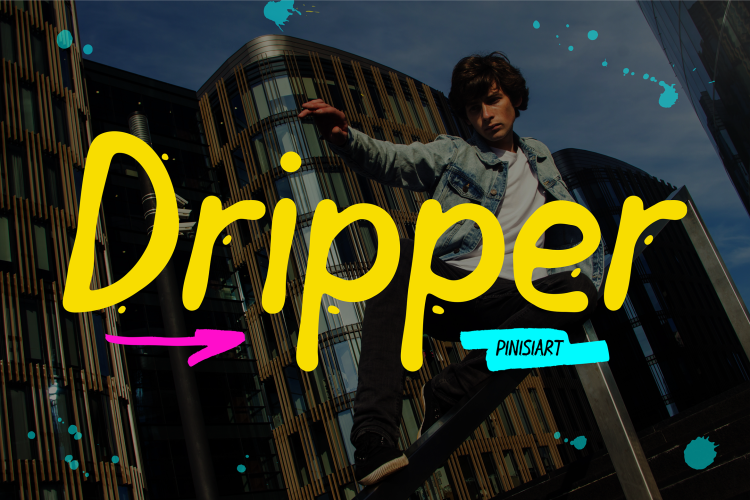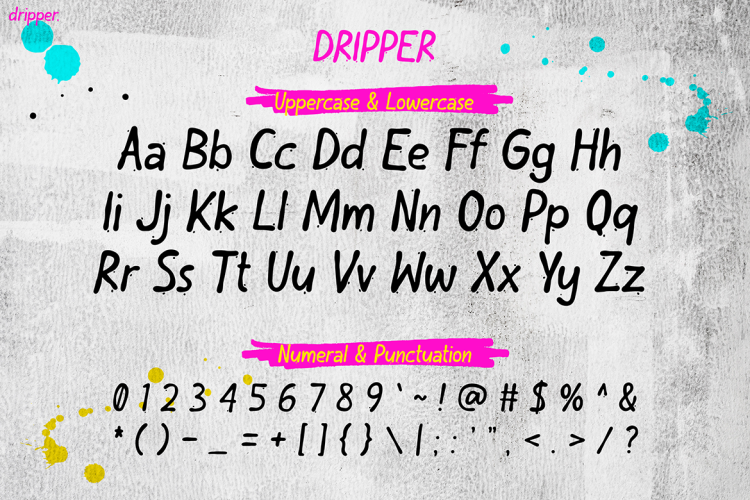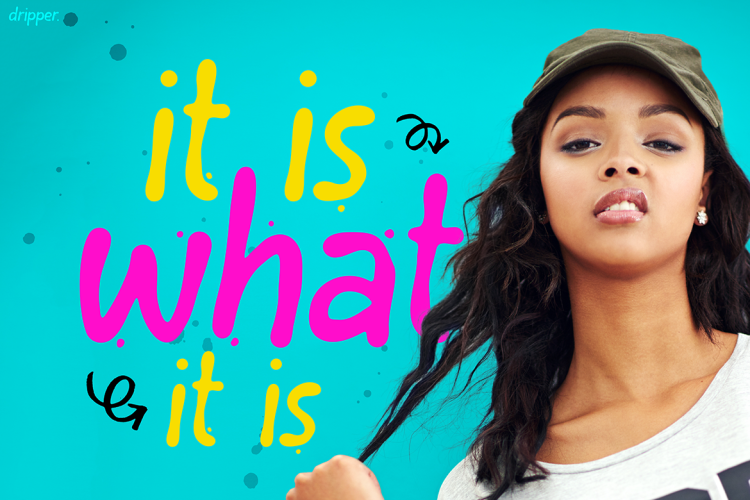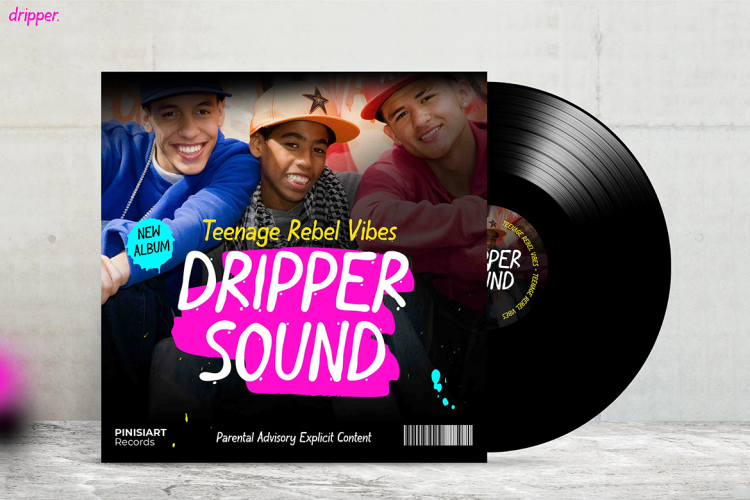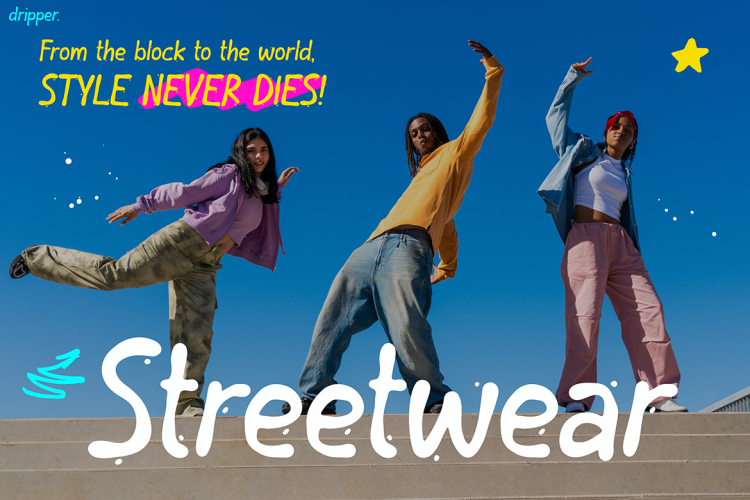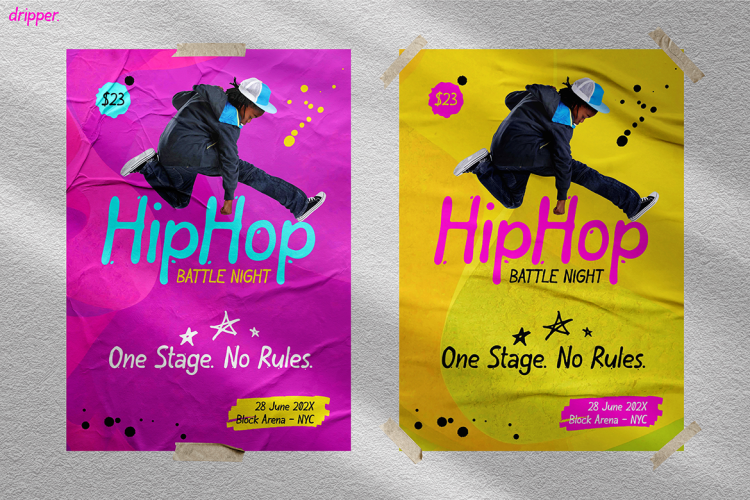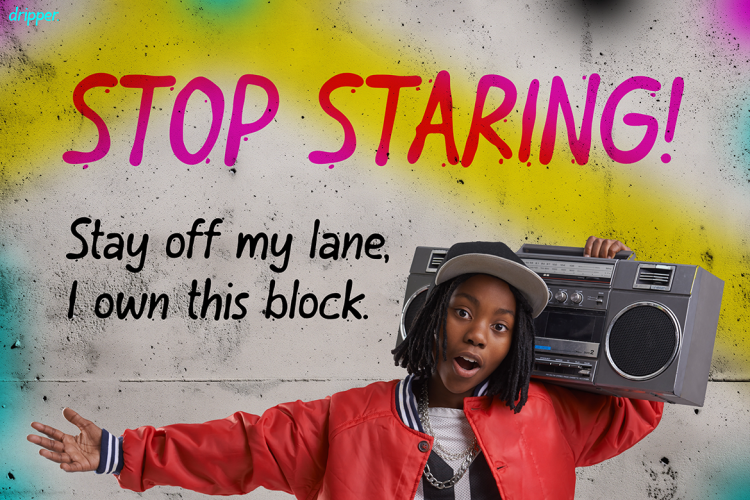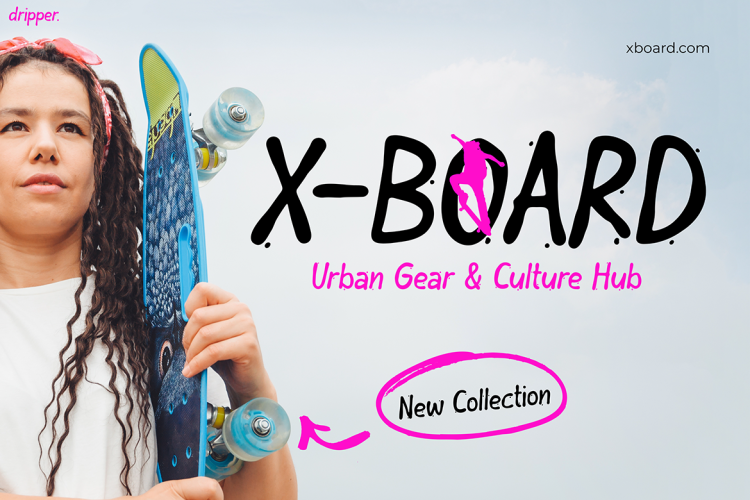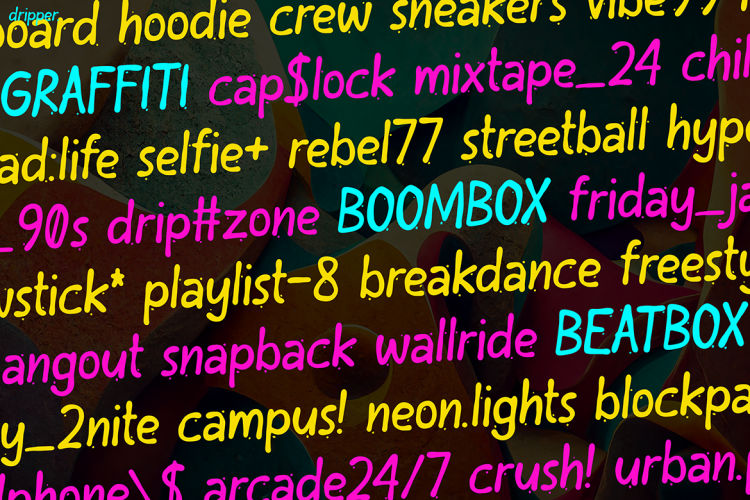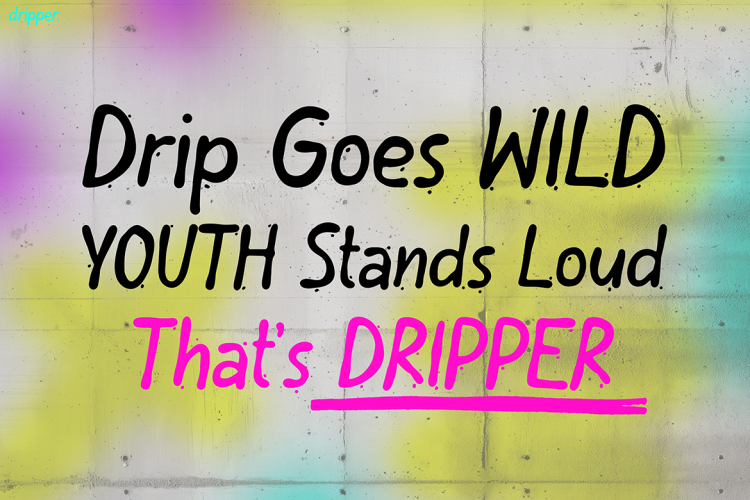
Why Instagram Font Dripper is Unique
Instagram Font Dripper isnโt just another typefaceโit makes a bold statement of street culture, creativity, and confidence. Graffiti art and dripping paint strokes inspire its design, transforming ordinary text into something powerful. Moreover, the font brings the raw vibe of urban walls together with a polished digital look. Each letter bursts with energy and gives your design a bold, stylish edge.
In addition, Instagram Font Dripper delivers stunning results across many design needs. Use it for posts, branding, or apparel, and your words instantly grab attention. Unlike plain fonts that fade into the background, this one refuses to stay quiet. It speaks loud, bold, and fearless, which helps creators push their message further.
Furthermore, the font combines fun with rebellion. Its strokes look playful but carry strong weight. Because of this mix, you can adapt it to both casual and professional projects. From music covers to youth campaigns, Instagram Font Dripper fuels designs with unstoppable energy.
Perfect for Creatives and Brands
This font serves creators who live and breathe culture. For example, content creators can supercharge Instagram posts, reels, and stories. Streetwear brands can shape strong logos, lookbooks, and clothing tags. Moreover, music producers and DJs can design powerful album covers, flyers, and event promos.
Influencers can also stand out by using it for a unique personal brand. In addition, youth campaigns, schools, and cultural hubs can connect with a younger audience through it. Even small businesses can give their marketing a stylish street-style edge with this bold font.
As a result, Instagram Font Dripper powers headlines, posters, packaging, and digital banners. It adapts quickly yet always delivers the same rebellious mood. Your work rises above the noise and commands attention.
Closing Motivation
If you want designs that shout energy, youth, and originality, choose Instagram Font Dripper. More importantly, it works as more than a fontโit becomes a lifestyle, a statement, and a bold visual weapon. Donโt let your message drown in boring typography. Go wild, go loud, and drip your creativity with Instagram Font Dripper today.